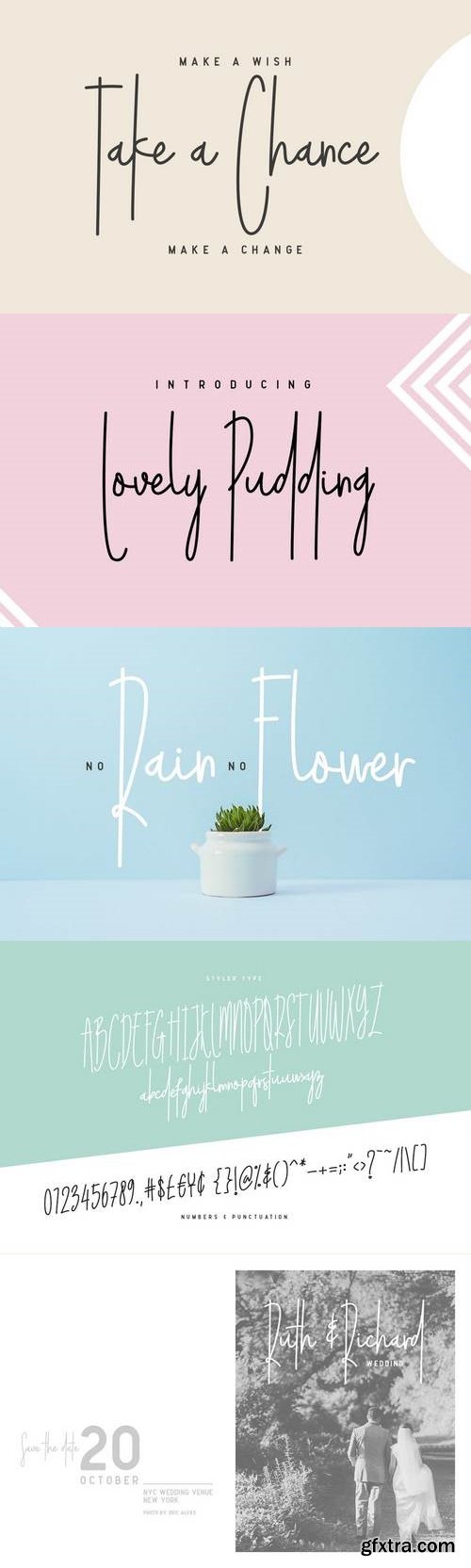
Pudding Font
Pudding is a modern script font, to simulate your lovely design. Perfect for many different projects: quotes, blog header, poster, wedding, branding, logo, fashion, apparel, letter, invitation, stationery, etc.